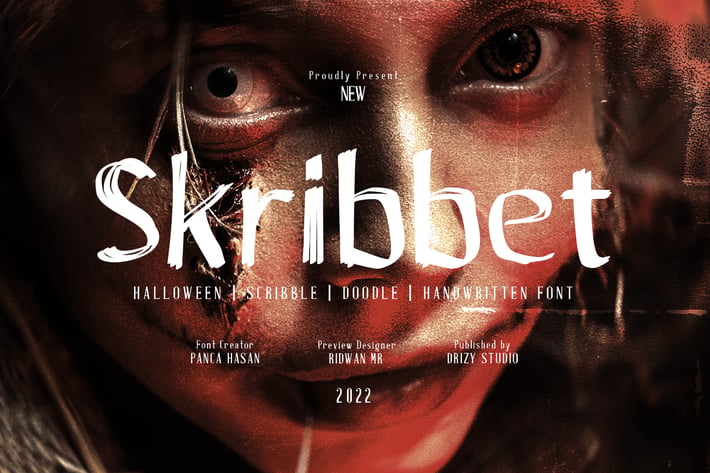
Skribbet - Scribble Font
Introducing Skribbet! a halloween scribble font from Drizy! It's suitable for halloween and other scary theme of your project.
Skribbet Features:
Uppercase & Lower Case
Numeral
Multilinguals & Punctuations